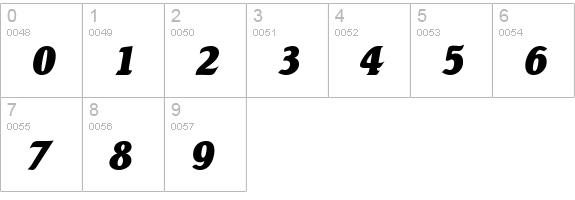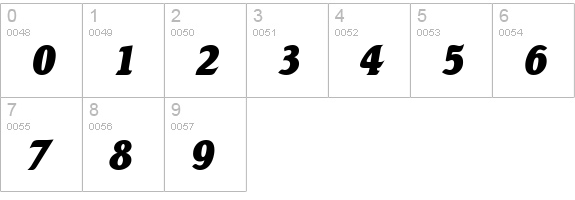
Seabird Heavy SF Bold Italic Font Details
Seabird Heavy SF Bold Italic is a heavy, high-impact, italic variant in the Seabird typeface family \xE2\x80\x94 well suited to high-impact headlines, posters, and display advertising.
Introducing Seabird Heavy SF Bold Italic font, a mesmerizing typographic masterpiece that will effortlessly elevate your design projects to new heights. This font boasts a perfect blend of strength and elegance, making it the ideal choice for eye-catching headlines, captivating titles, and impactful branding. With its bold and striking letterforms, Seabird Heavy SF commands attention and demands to be noticed. The italicized slant adds a touch of sophistication and flair, infusing your text with a sense of dynamic movement. Whether you're designing a modern logo, a stylish magazine layout, or a sleek website, this font will instantly add a touch of professionalism and uniqueness to your work. One of the best features of Seabird Heavy SF Bold Italic is that it is freely available to download at FontsMarket.com. Yes, you read that right! This incredible font can be yours, completely free of charge. Now, you can enhance your designs without any financial constraints, allowing your creativity to flow freely and unburdened. But don't mistake its availability for a lack of quality. Seabird Heavy SF Bold Italic is meticulously crafted to ensure flawless legibility, even at small sizes. Its refined curves, balanced proportions, and attention to detail make it a versatile font that can be used across a wide range of design applications. Whether you're a seasoned graphic designer or just starting your creative journey, Seabird Heavy SF Bold Italic will undoubtedly become an indispensable tool in your font arsenal. Its versatility, elegance, and boldness will leave a lasting impression on your audience, helping you stand out from the crowd. So why wait? Head over to FontsMarket.com and download Seabird Heavy SF Bold Italic for free today. With this font at your fingertips, the possibilities are endless, and your designs will never be the same again. Embrace the power of Seabird Heavy SF and watch your creativity take flight.